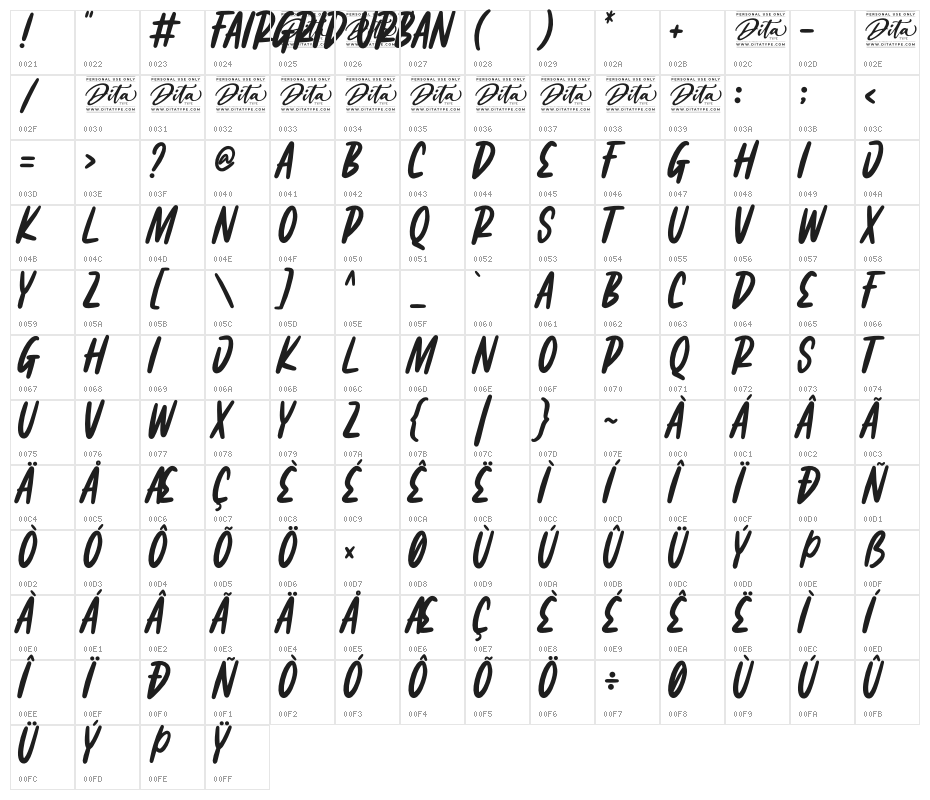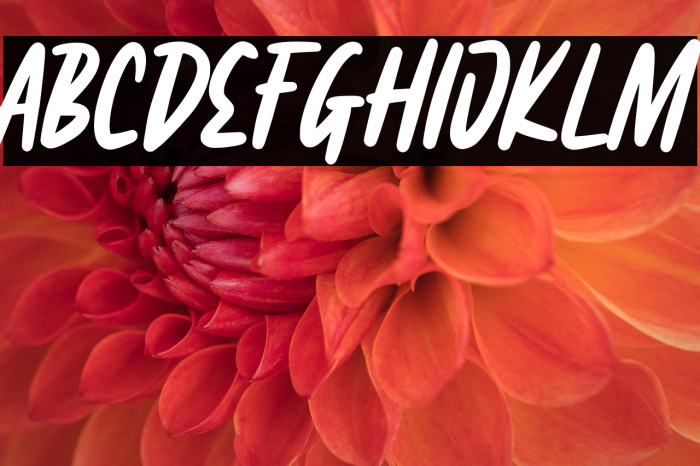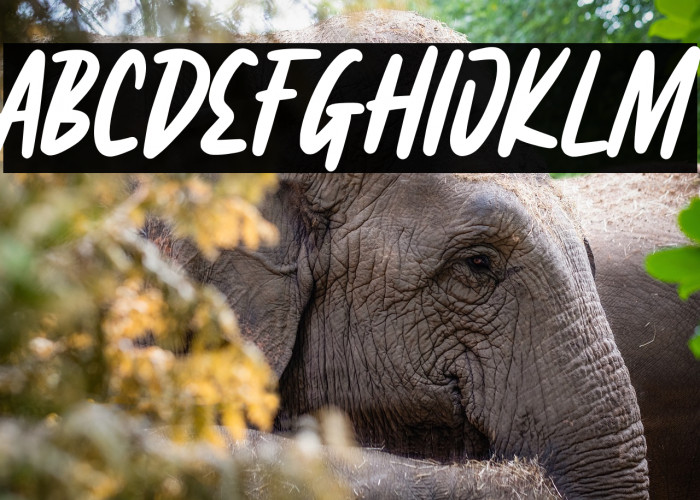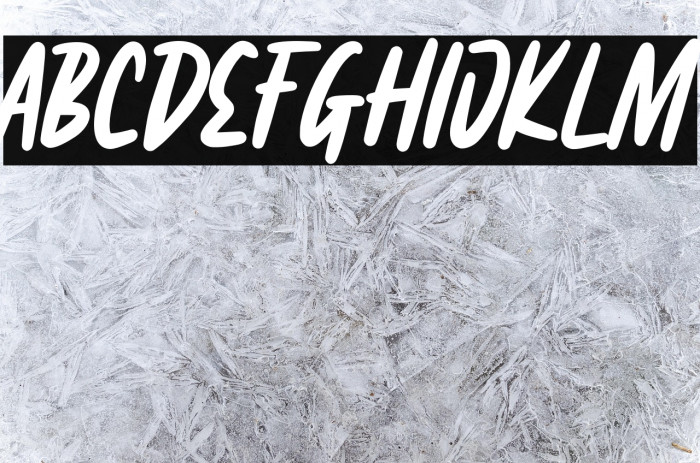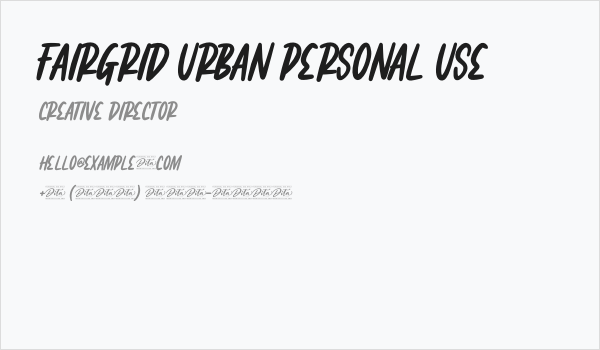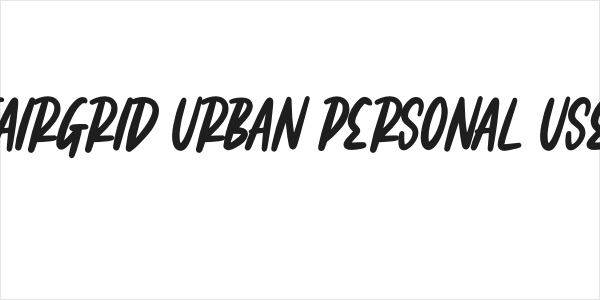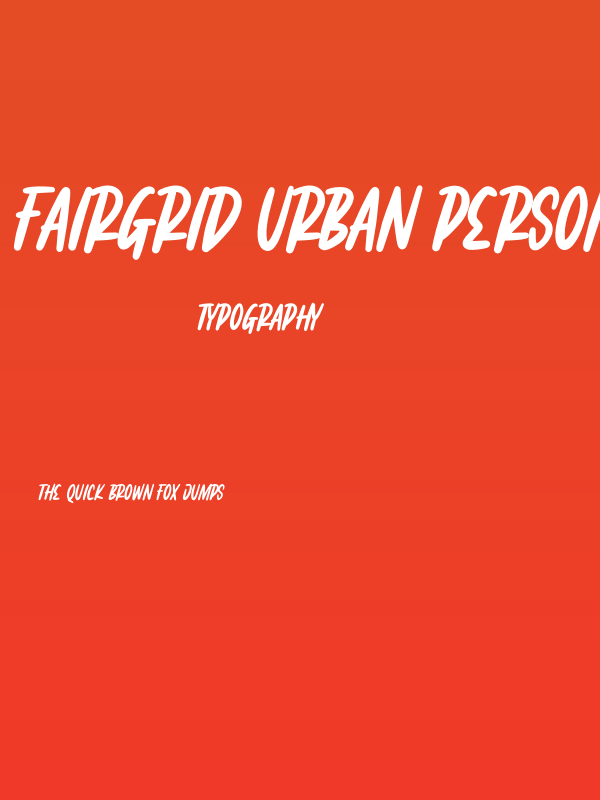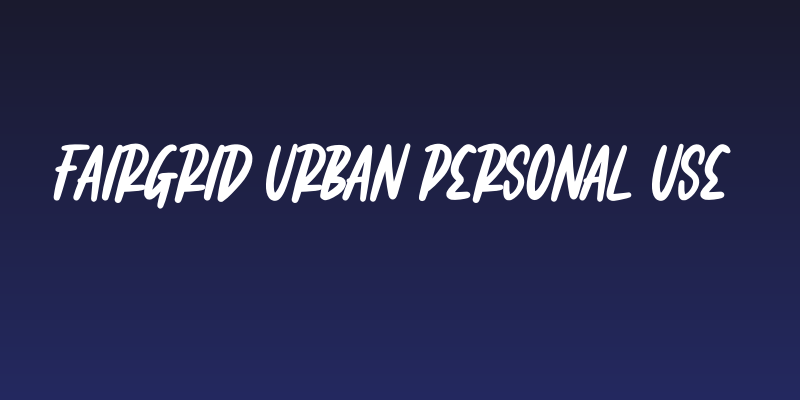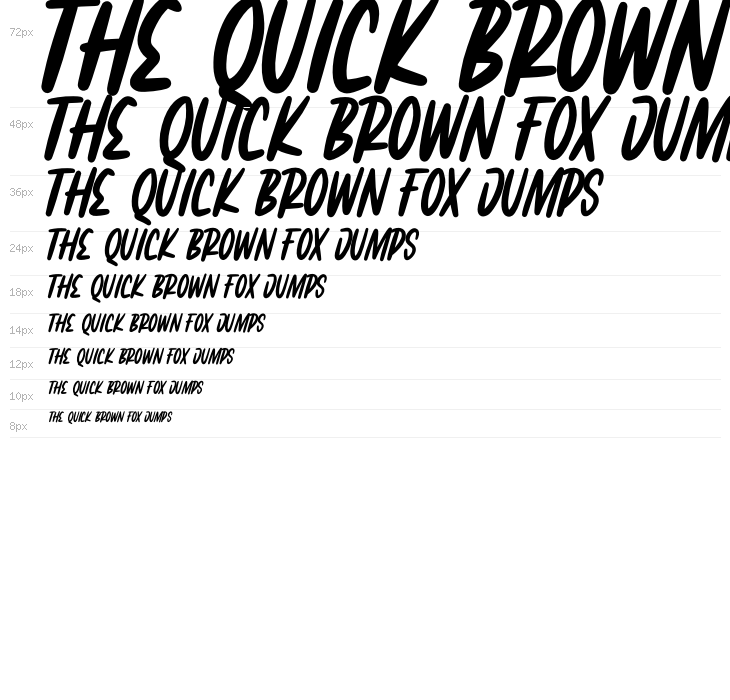
Fairgrid Urban Personal Use Font
Fairgrid Urban Personal Use Description
This font features a bold, handwritten style with a dynamic and energetic appearance. The letters are slightly slanted, adding a sense of movement and fluidity. The strokes are thick and consistent, providing a strong visual impact. The uppercase and lowercase letters maintain a cohesive style, with rounded edges and a playful character. The numbers and special characters are designed to match the overall aesthetic, ensuring uniformity across all elements. This font is ideal for projects that require a personal touch and a lively, informal vibe.
| Proposed Projects | Ideal for branding, posters, social media graphics, and creative projects that require a personal and energetic touch. |